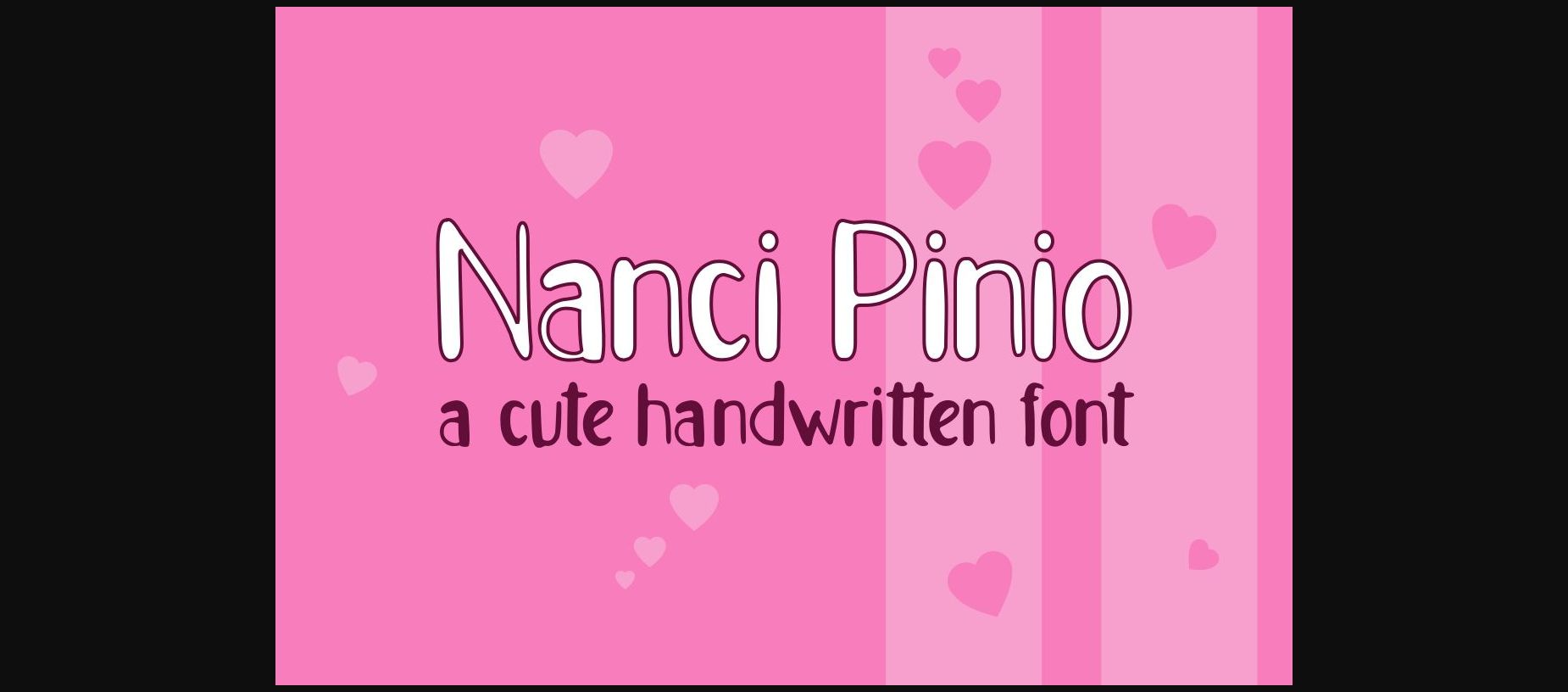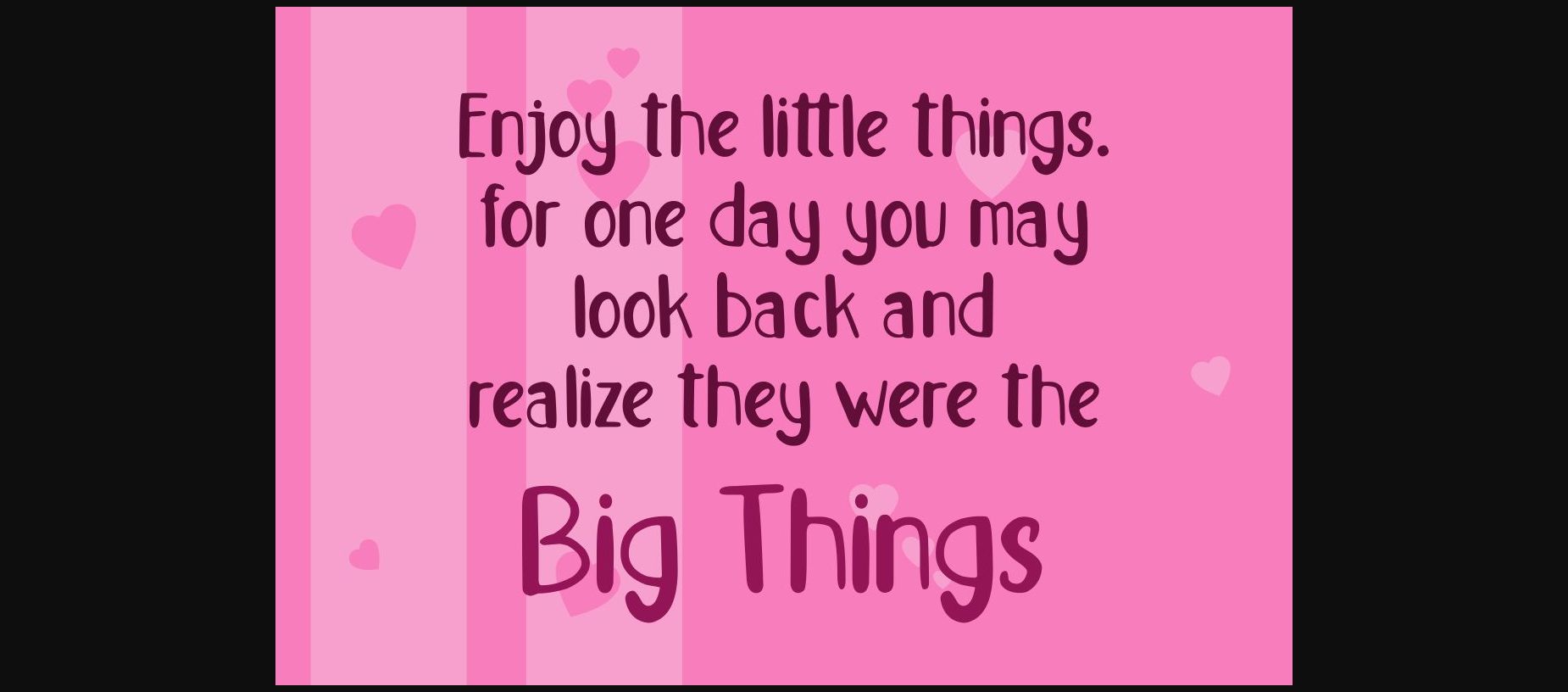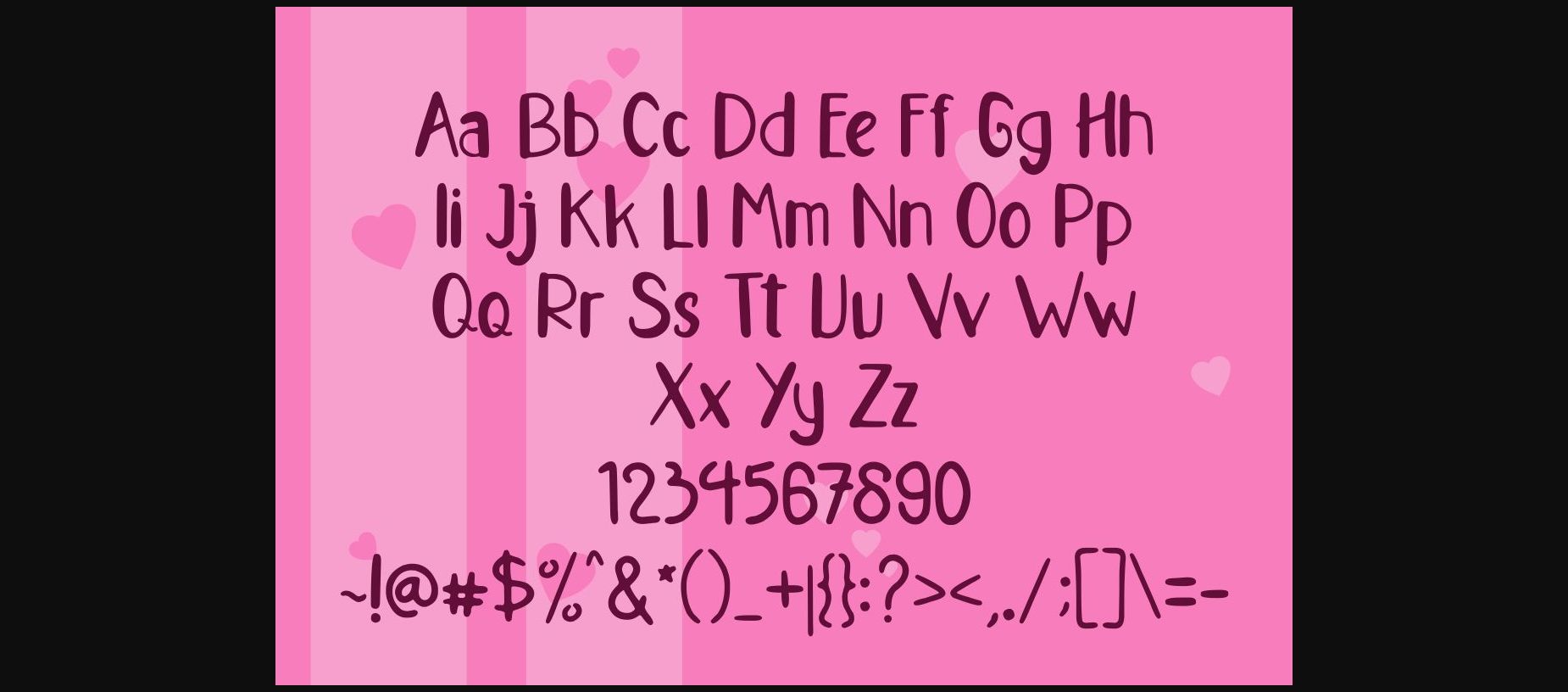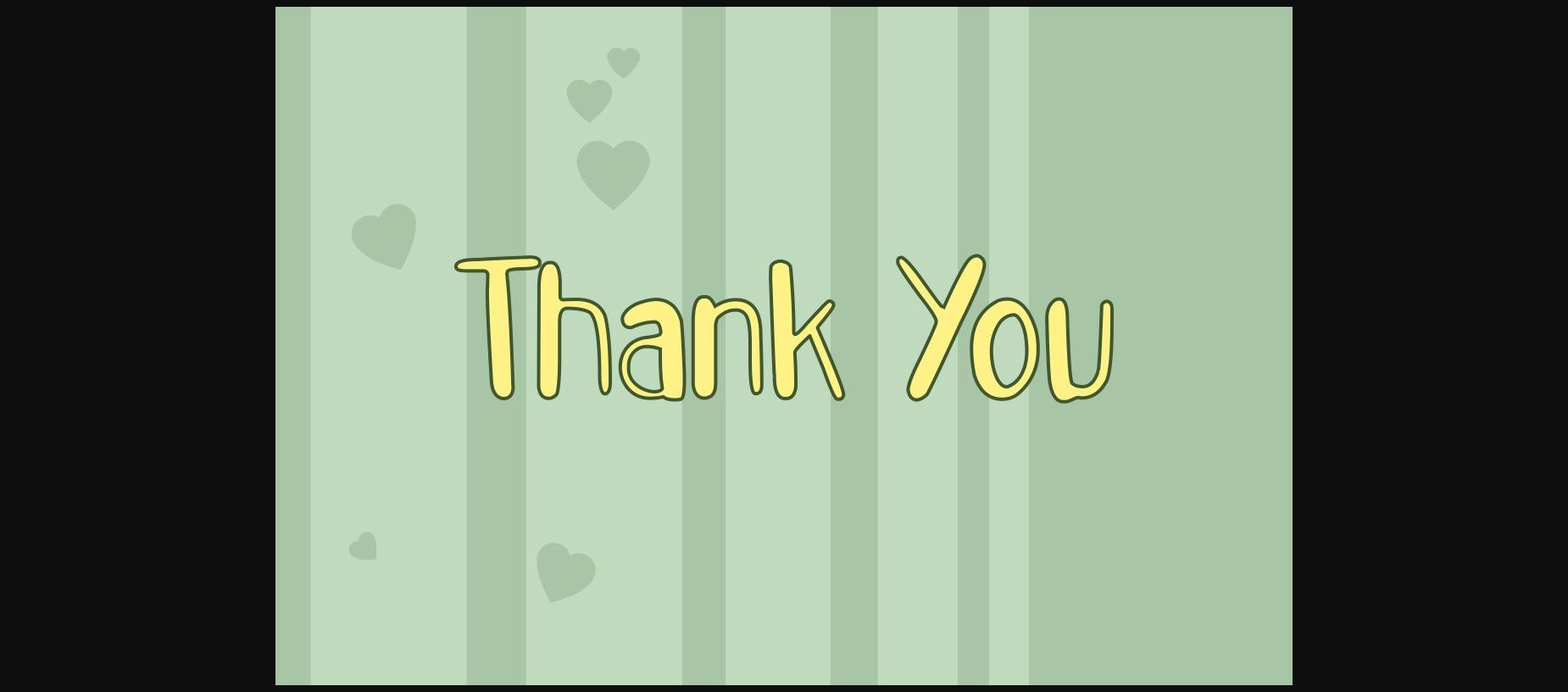
Nanci Pinio Font
About Nanci Pinio Font
Nanci Pinio is a cute and casual handwritten font with an incredibly friendly feel. Whether you’re looking for fonts for Instagram or calligraphy scripts for DIY projects, nanci pinio will turn any creative idea into a true piece of art!